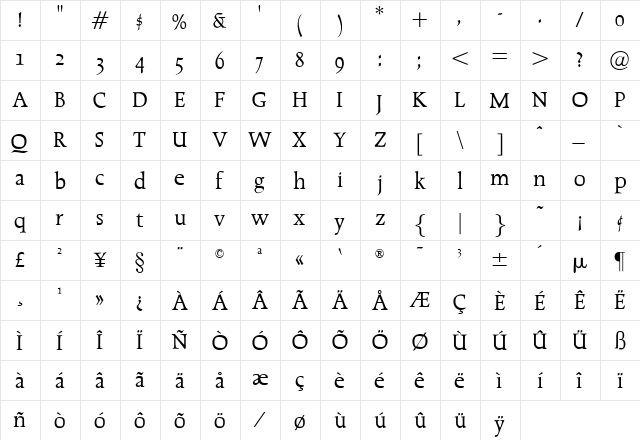
OPTICather Medium
Design Context for OPTICather Typeface
OPTICather offers clean, dependable letterforms without strong stylistic allegiance, making it a practical choice for designers who need flexibility.
Pro Tip: Use OPTICather in both headline and body roles to test its range before committing to a single application.